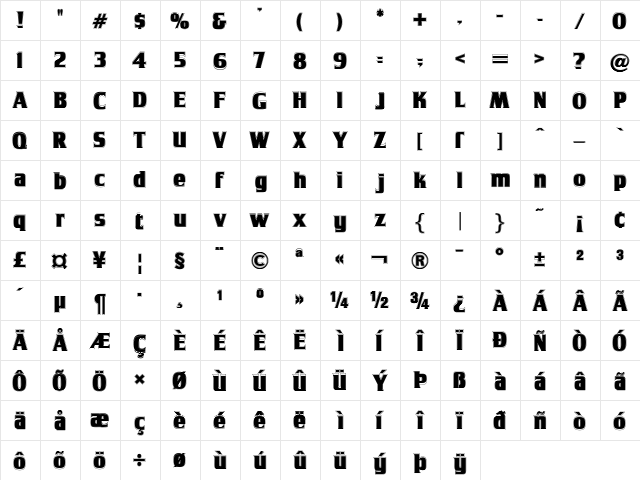
Tobago Poster Contour Regular
Design Context for Tobago Poster Contour Typeface
Tobago Poster Contour is a composed and adaptable typeface that performs quietly and consistently across a wide range of design contexts.